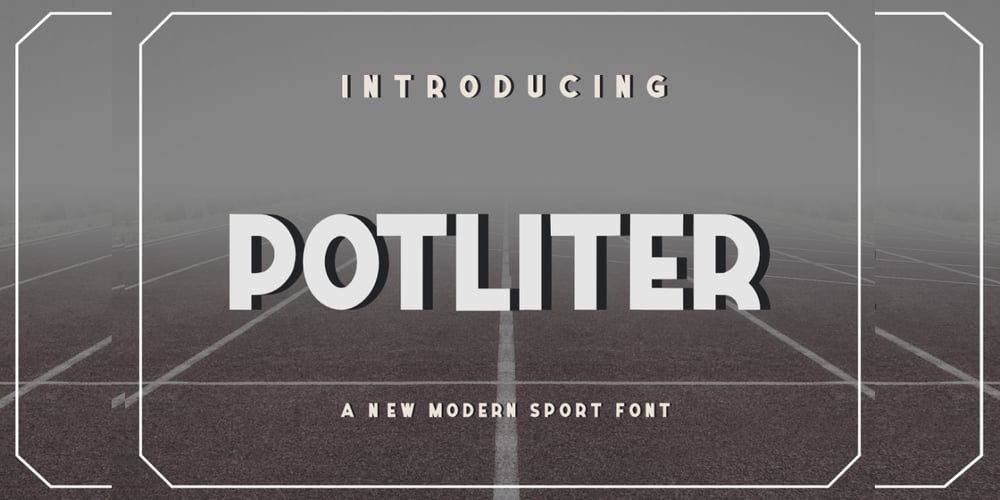
Potliter Font Family was designed by Bayu Aji Fais Mursid and published by Bayuktx. Potliter contains 1 styles and family package options. Hello,Thank you for visiting my products, we will give you the best choice.POTLITER Modern Sport Font, This font is made with a high premium quality level which you can use as flyers, quotes, posters, banners, packaging, merchandise, logotypes and much more.FEATURES :* Uppercase* Number* Punctuation* Multilingual* PUA Encode* OpentypeFILES INCLUDED :* POTLITER* POTLITERThank you